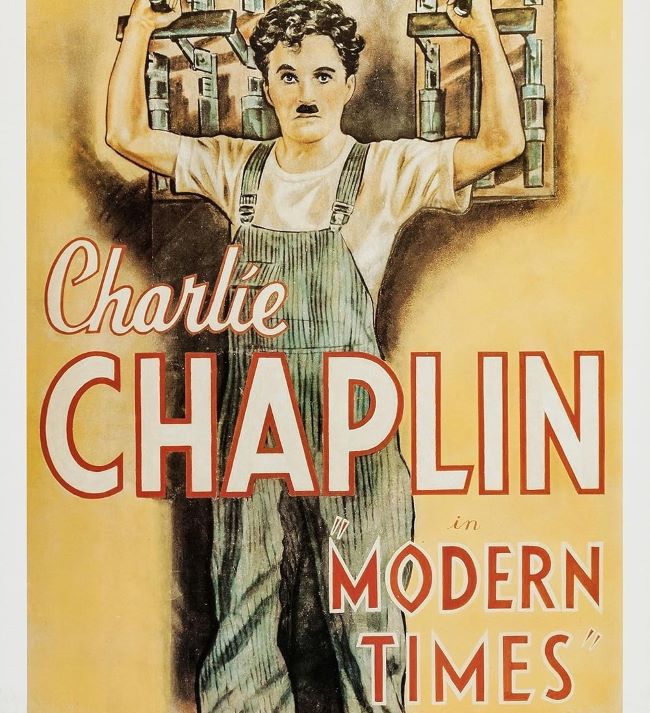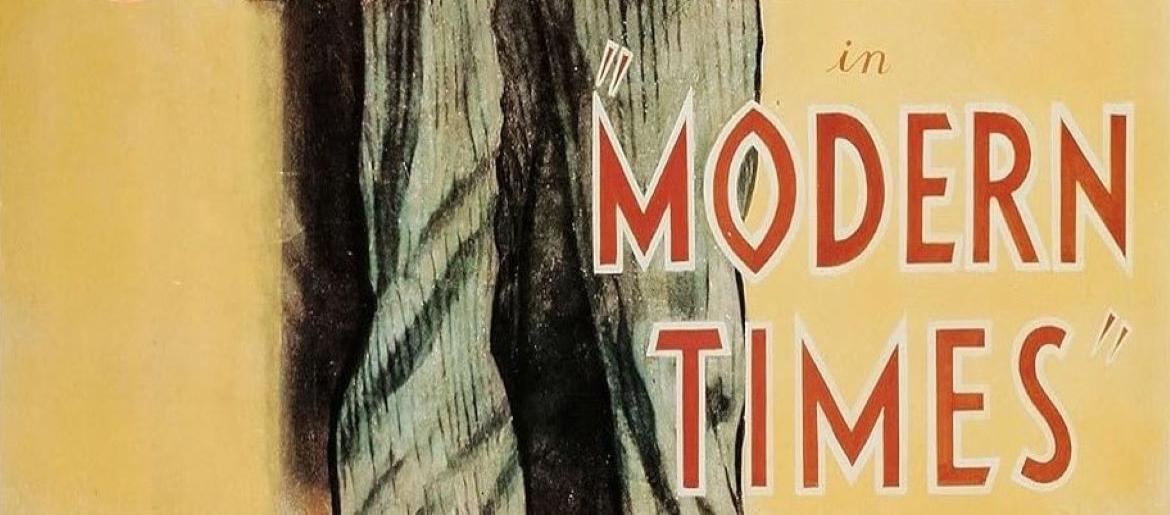
Modern Times Font
Modern Times Font grinds forward like factory gears with utilitarian letterforms that blend industrial efficiency with Depression-era humanity. This typography captures mechanization’s relentless march while preserving warmth beneath its steel surface—visual commentary on progress that crushes and elevates simultaneously, echoing Chaplin’s tragicomic brilliance through every structured stroke.
In the original posters, the typography is strong and straightforward, built to stand out in bold headlines. This was intentional—the Modern Times font connects directly with the factory-driven world Chaplin lampooned, while still carrying a touch of cinematic elegance. Designers today often look for fonts in this style when creating vintage-inspired posters, retro graphics, or artwork that needs a classic yet industrial edge.
Modern Times Font powers labor union materials, industrial heritage museums, vintage manufacturing branding, and social commentary projects—where typography becomes testimony to working-class resilience against assembly-line dehumanization, proving design can champion dignity.